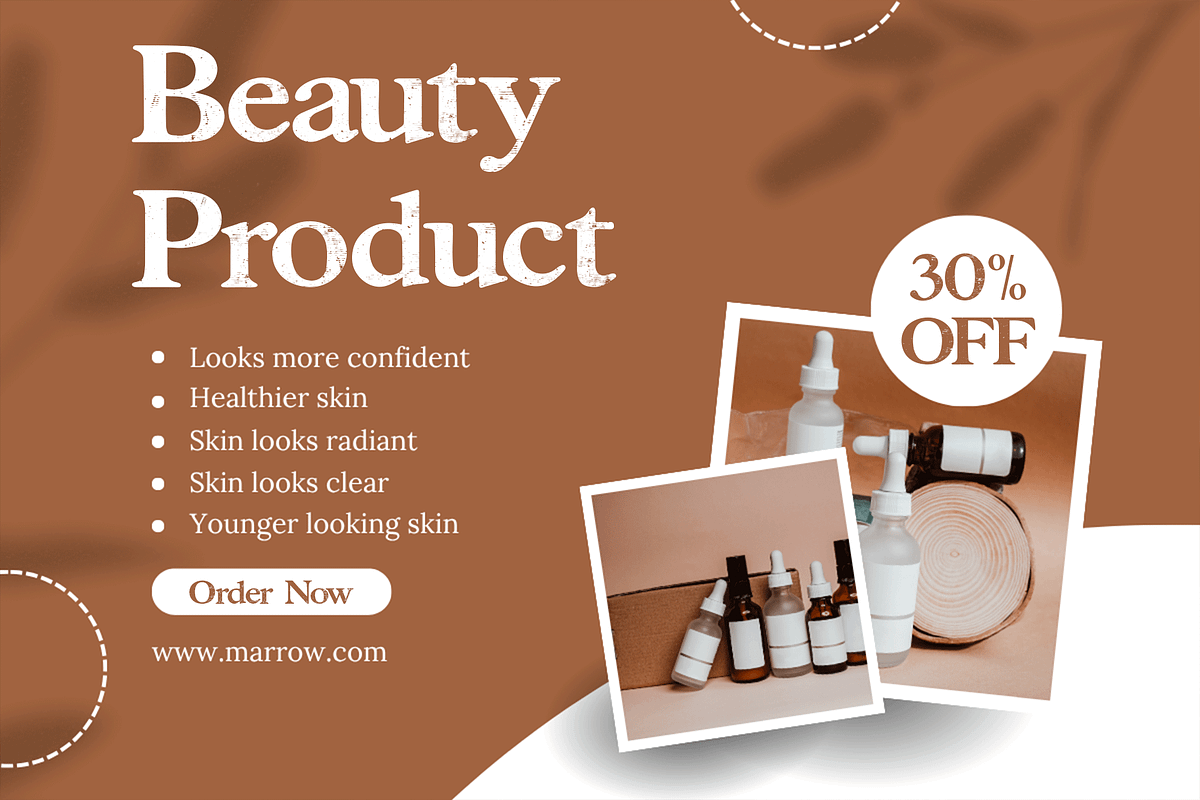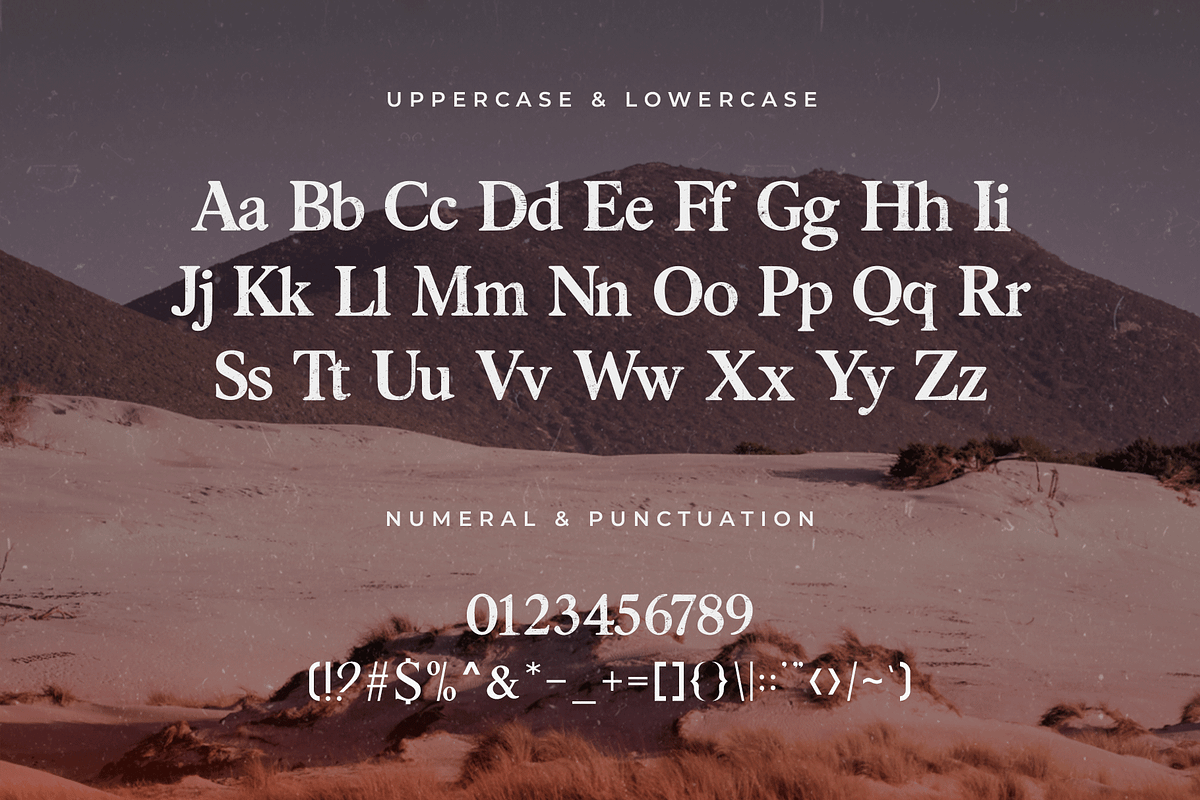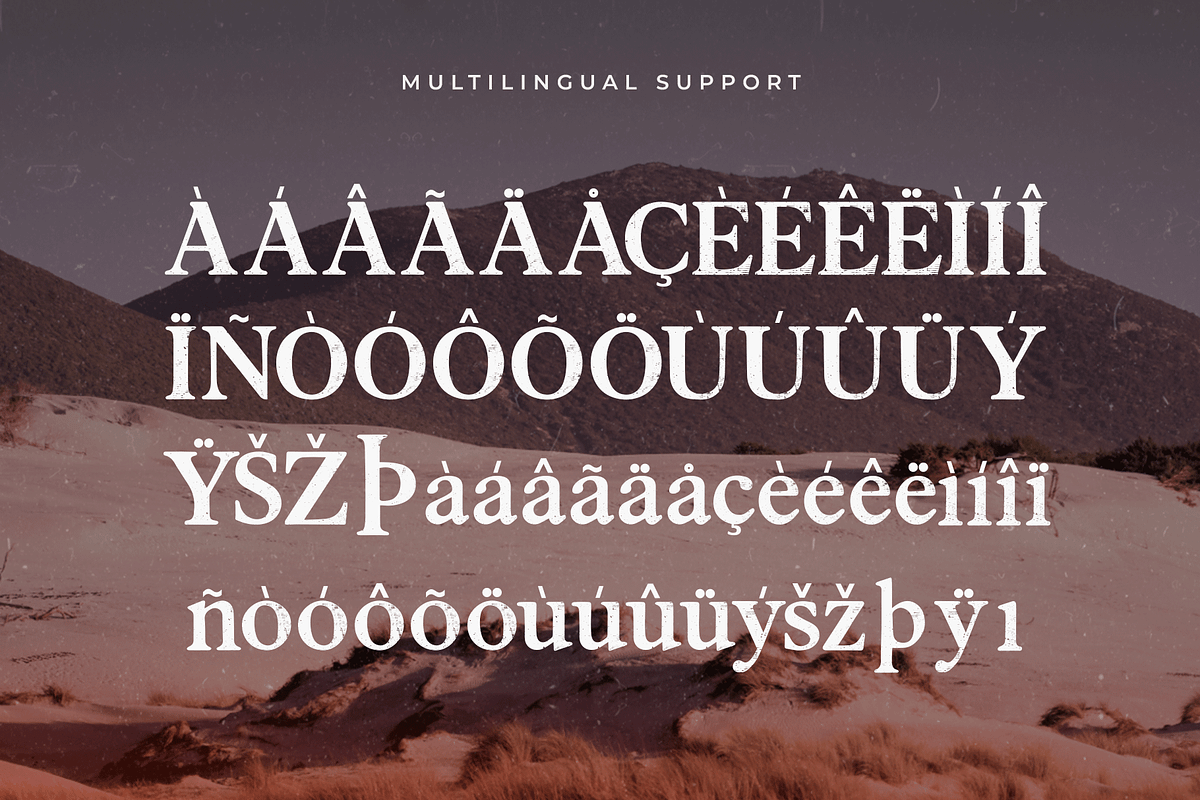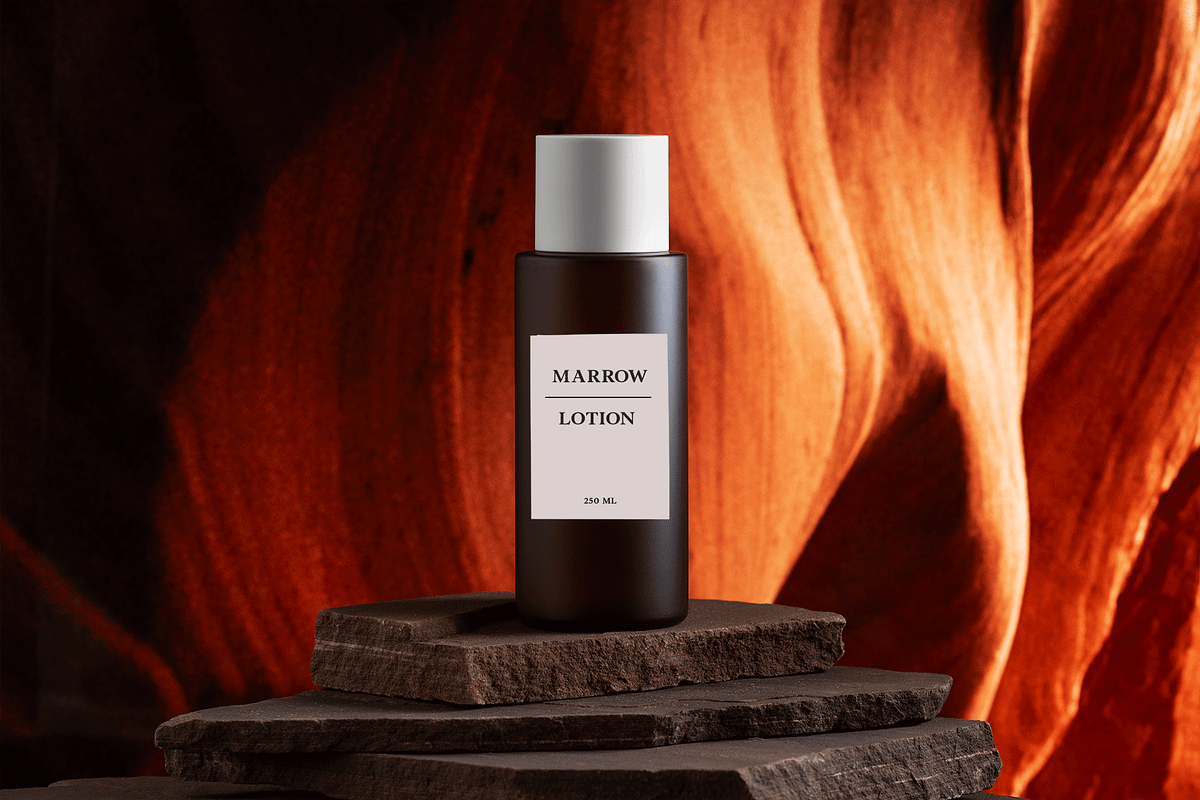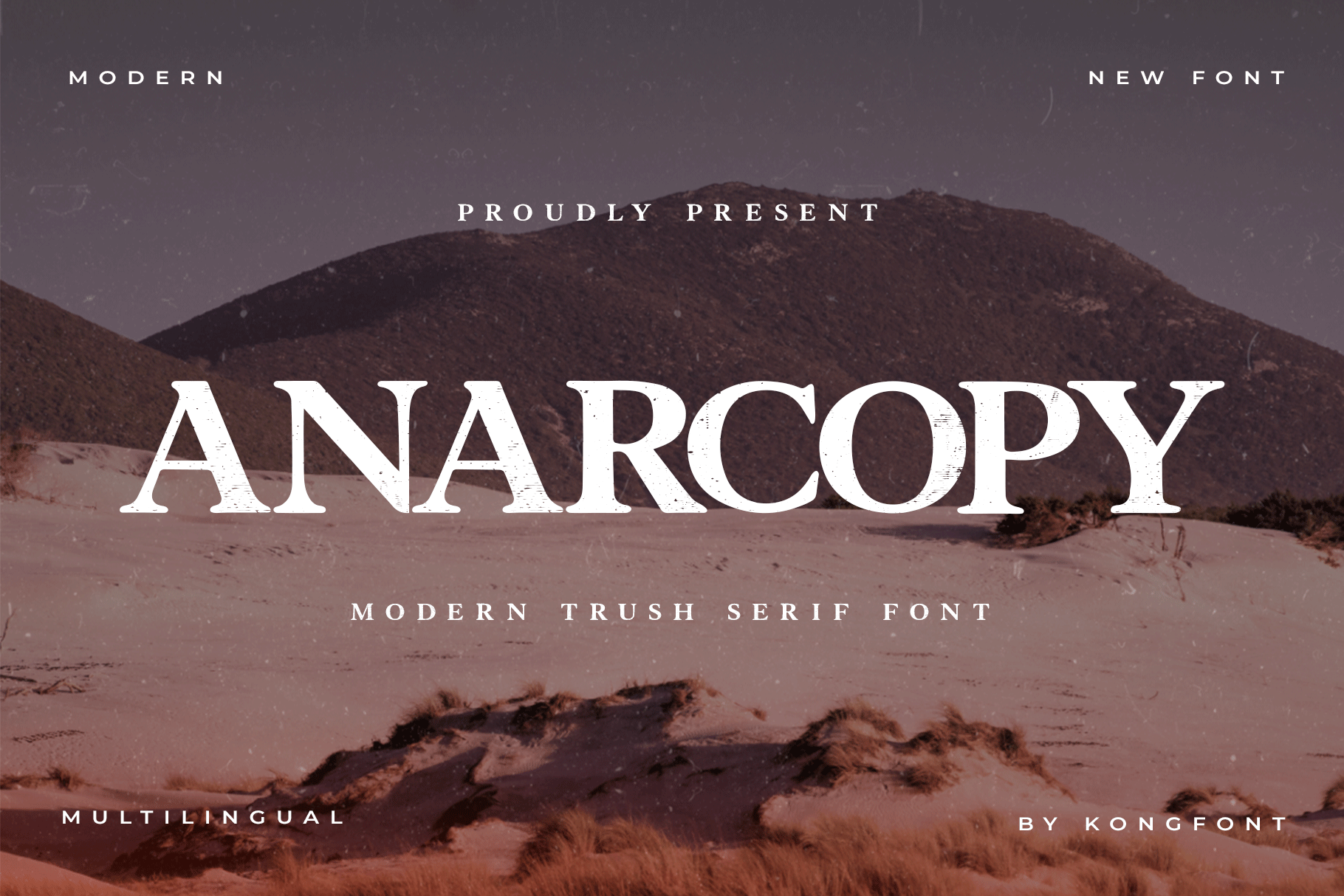
Anarcopy – Modern Trash Serif Font
Anarcopy is a modern trash serif font that channels the spirit of chaos, grit, and underground culture. With jagged serifs, irregular strokes, and raw textures, this font breaks all the rules—perfect for designs that dare to be loud, bold, and unapologetically disruptive.
Born from the aesthetics of punk zines, street protest art, and anti-establishment visuals, Anarcopy is ideal for music posters, album covers, alternative branding, editorial spreads, and merchandise that craves edge and energy. It's messy, loud, and deliberately imperfect—just the way rebellion should look.
Complete with uppercase and lowercase characters, punctuation, numerals, and multilingual support, Anarcopy offers both style and usability in chaotic harmony.
If your design needs attitude and grit, Anarcopy delivers it in a raw serif form.